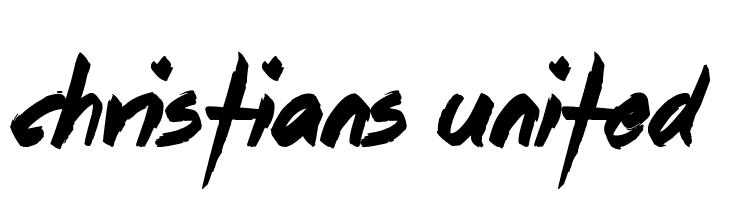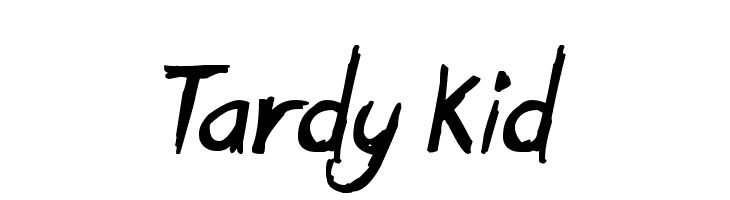
A bold, hand-drawn font with dynamic, irregular strokes and an expressive style.
A playful, cursive-like font with flowing strokes and unique character shapes.
A bold, hand-drawn font with a scribbled texture and playful style.
A whimsical, artistic font with elongated, playful letterforms and unique spiral elements.
A bold, brush-style font with dynamic, expressive strokes.
A bold, brush-style font with expressive, dynamic strokes.
A bold, brush-style font with dynamic and expressive strokes.
A bold, sketch-like font with a comic book style and textured appearance.
A decorative and whimsical font with swirling embellishments and a bold, artistic style.
A bold, brush-style font with dynamic, expressive strokes.